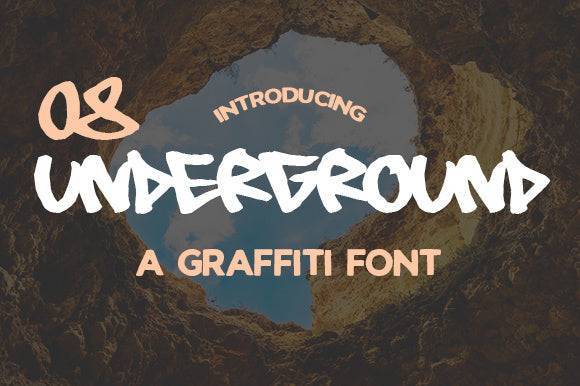
08 Underground Font for Crafting, Logos and Print Projects
08 Underground is a graffiti‑style decorative font created by typographer Johan Waldenström. Its hand‑drawn, urban aesthetic makes it perfect for designs that need a bold, edgy, and masculine feel. Whether you’re crafting a gritty streetwear logo, a hip-hop inspired poster, or a bold headline for apparel and merchandise, this font brings character and attitude. In addition to its striking visual appeal, 08 Underground is versatile enough to be used across various media, including digital designs and print materials. As an excellent choice for branding and promotional content, it stands out in crowded spaces and captures attention effortlessly. For those looking to pair it with other unique typography, the almonte font for creative projects offers a complementary contrast that enhances the overall design aesthetic.
- Anyone needing bold, urban‑style typography for branding, posters, t‑shirts, merchandise
- Streetwear T‑shirt designs, hoodies, merch
- Logo and branding with urban, graffiti or hip‑hop vibe
- Posters, flyers, album covers, event promos
- Digital artwork, social media graphics, web banners
- Unique graffiti‑style lettering not found in standard font libraries
- Highly legible despite its decorative, hand‑drawn look — great even for larger text and bold headings
- Perfect for streetwear & urban‑style branding, giving your designs a gritty, authentic feel
| Feature | 08 Underground | Generic A | Generic B |
| Style | Decorative graffiti / street style | Standard sans‑serif | Handwritten script |
| Ideal Use | Logos, streetwear, posters, merch | Body text, UI, minimal designs | Invitation, greeting cards, decorative text |